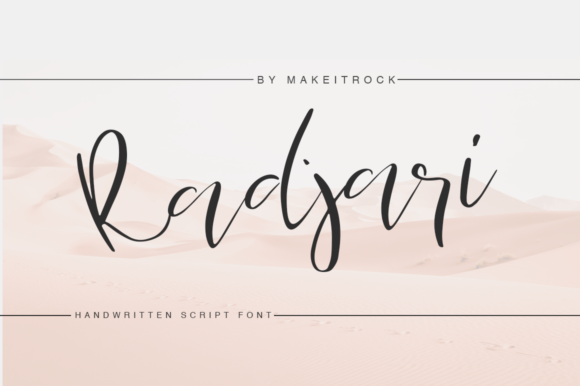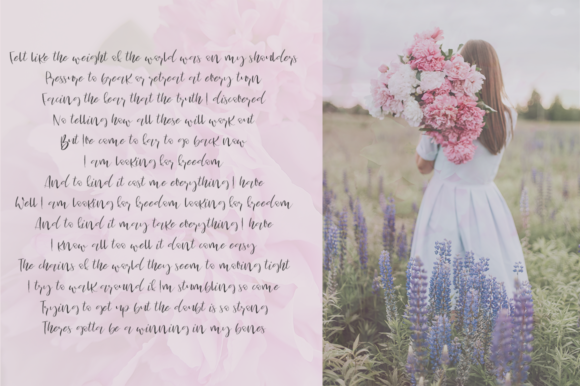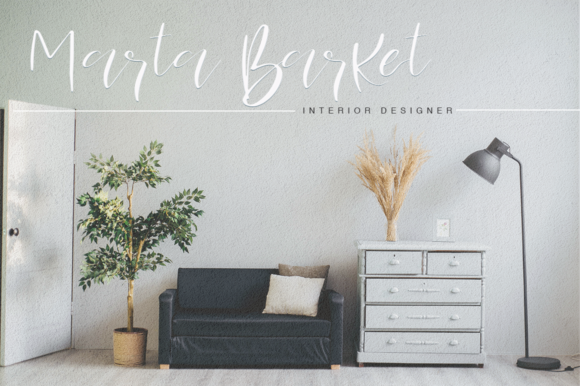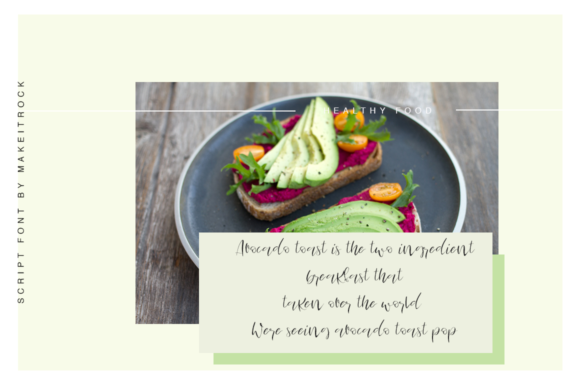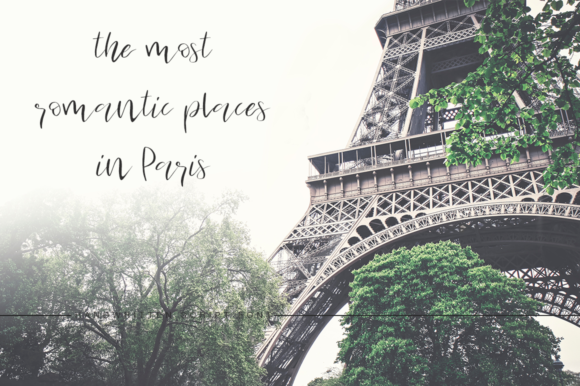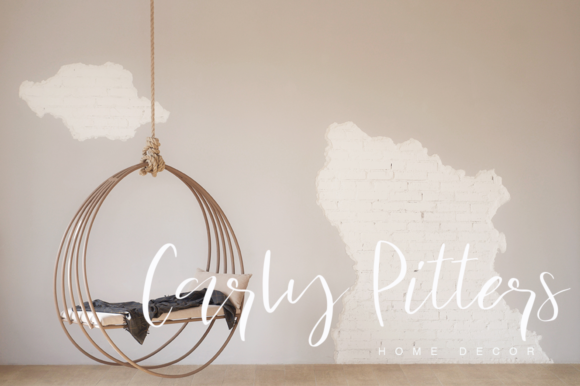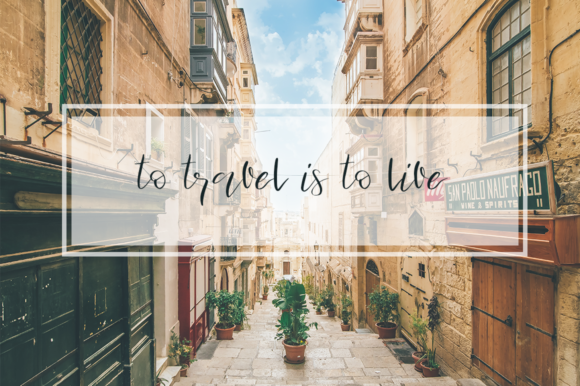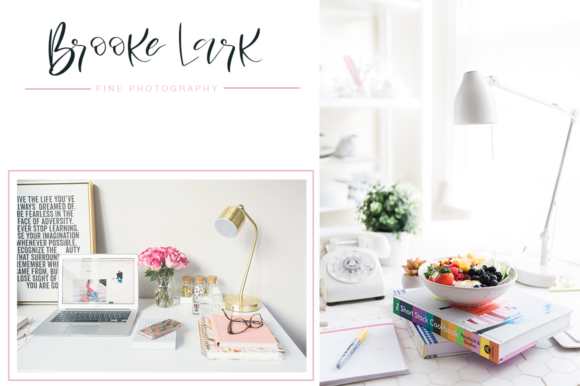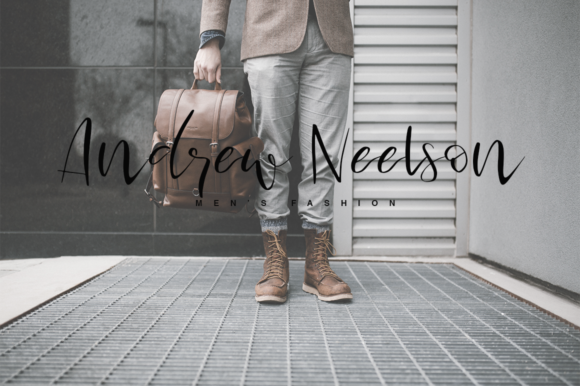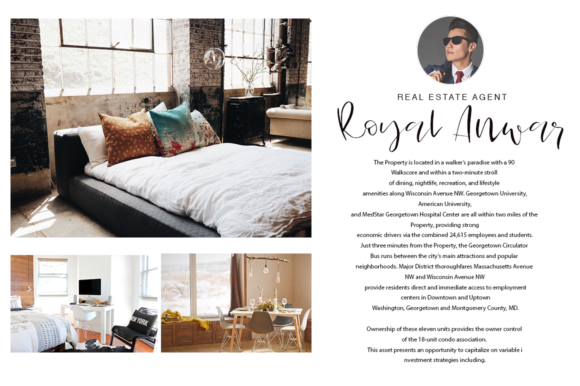
Radjari Font
About Radjari Font
Radjari has been attentively written with gentle curves to produce a font that’s completely distinctive and original. Perfect for adding a elegant and unique touch to your lettering projects and branding.
Radjari can be used for every design that needs a elegant feel.